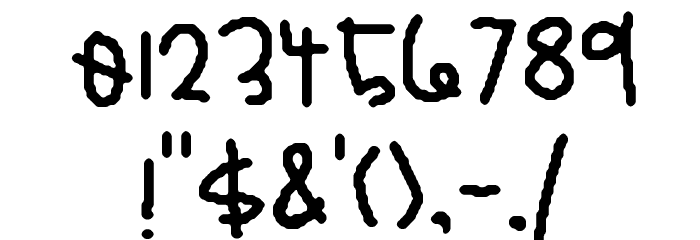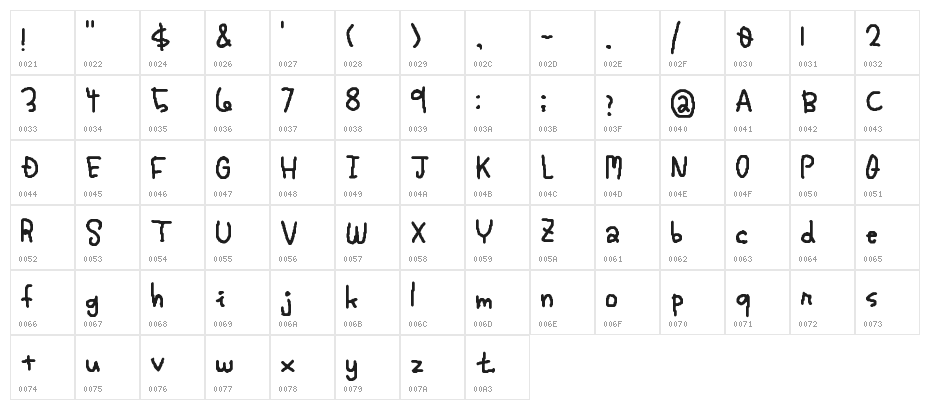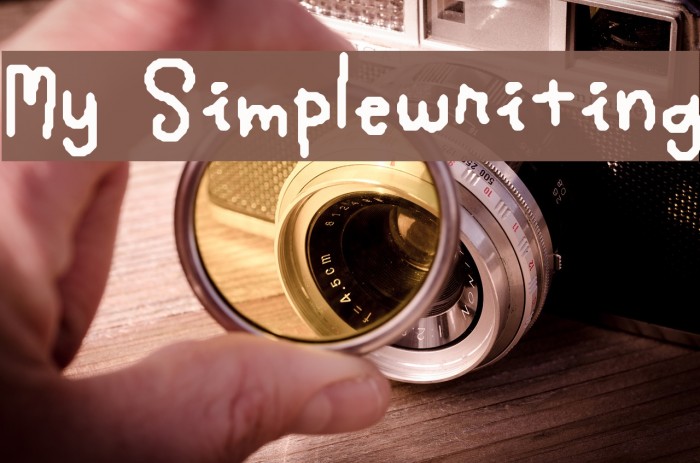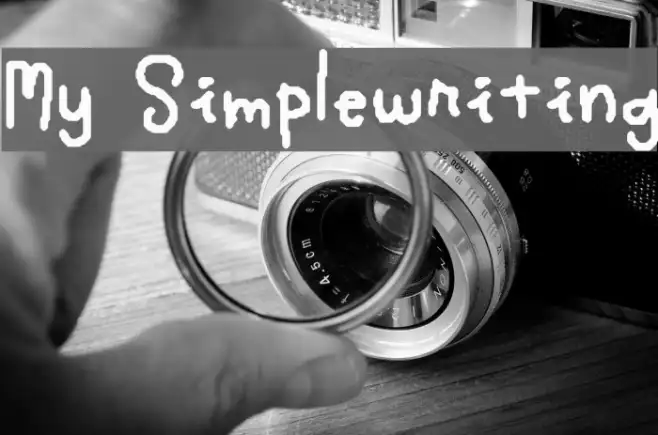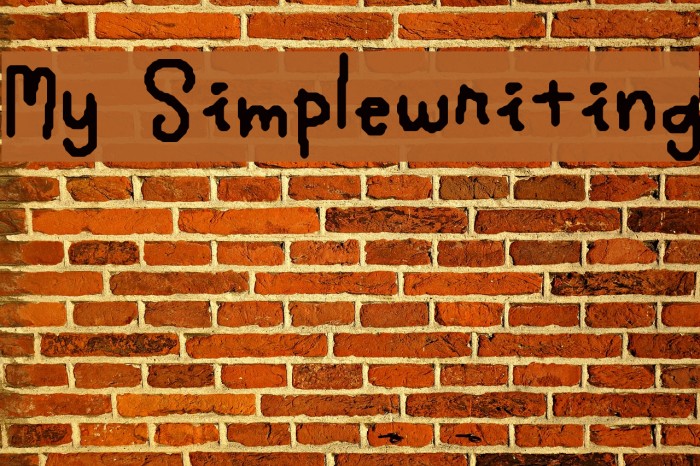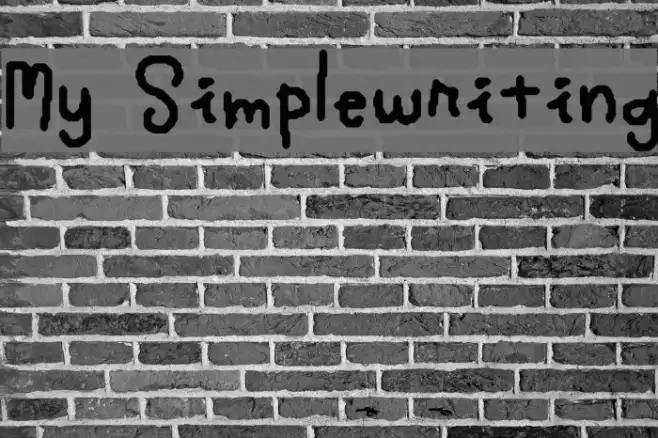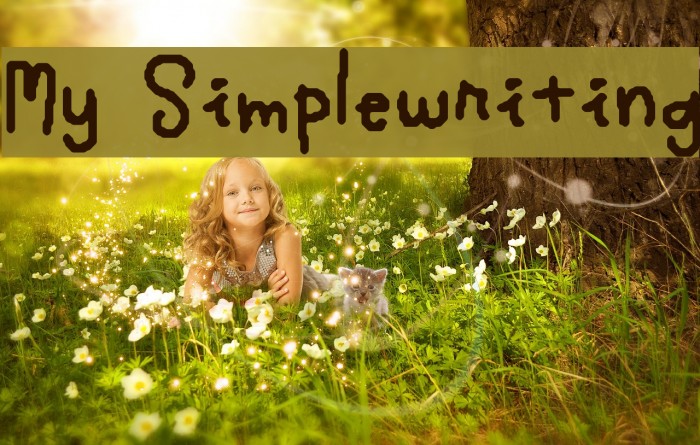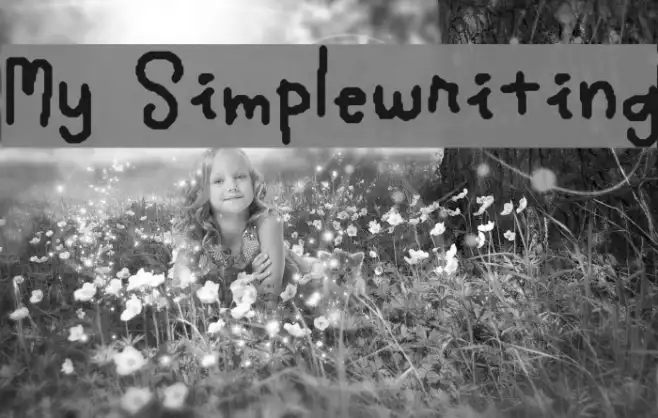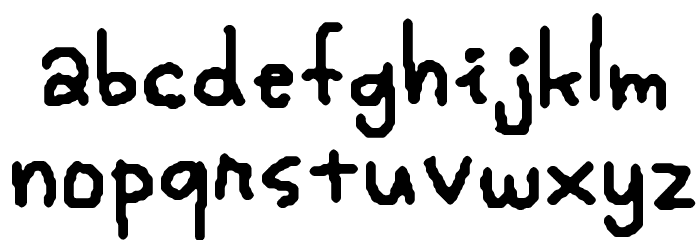
My Simplewriting Font
My Simplewriting Description
This font exhibits a playful and casual handwritten style, characterized by its uneven strokes and organic flow. The letters have a slightly irregular shape, giving them a personal and informal feel. The uppercase and lowercase letters maintain a consistent style, with rounded edges and a slight tilt, enhancing the handwritten effect. The numbers and special characters follow the same aesthetic, ensuring uniformity across all glyphs. This font's charm lies in its simplicity and approachability, making it suitable for projects that require a personal touch.
| Use Case | Headlines, Informal text, Personal projects |
| Proposed Projects | Ideal for greeting cards, personal notes, children's books, and informal branding. |